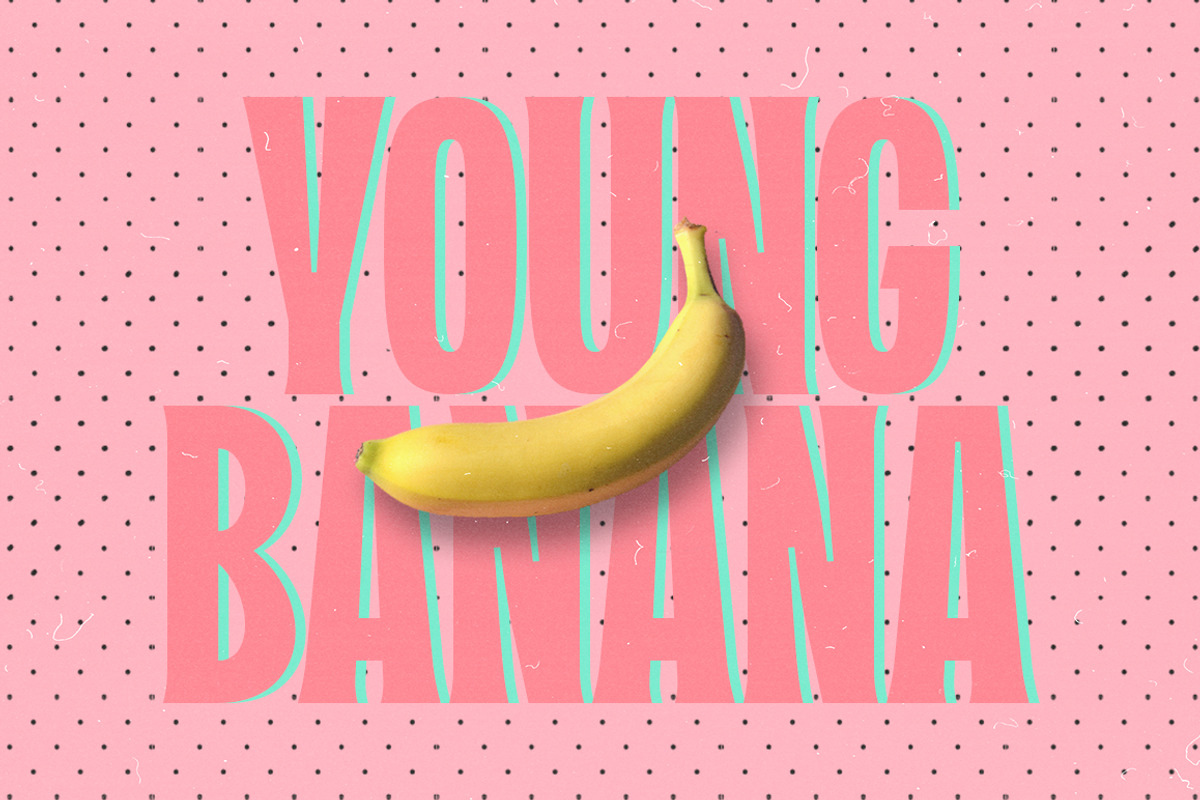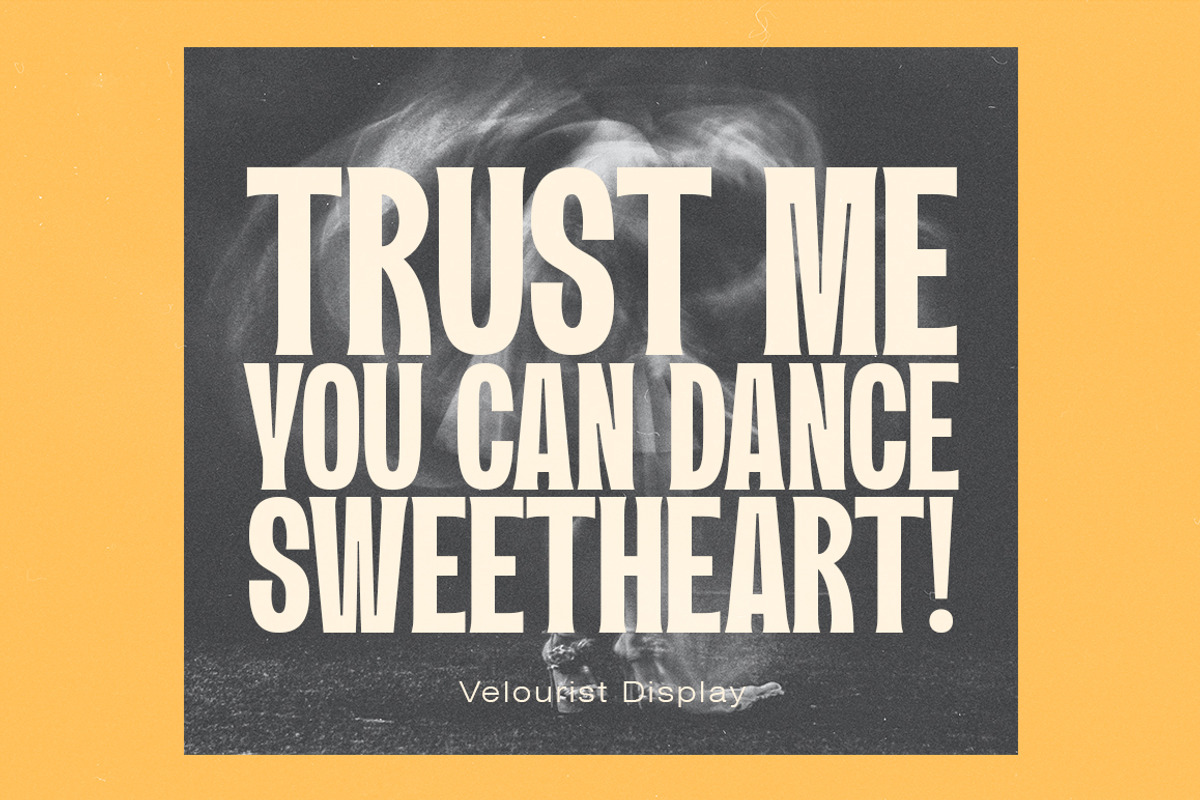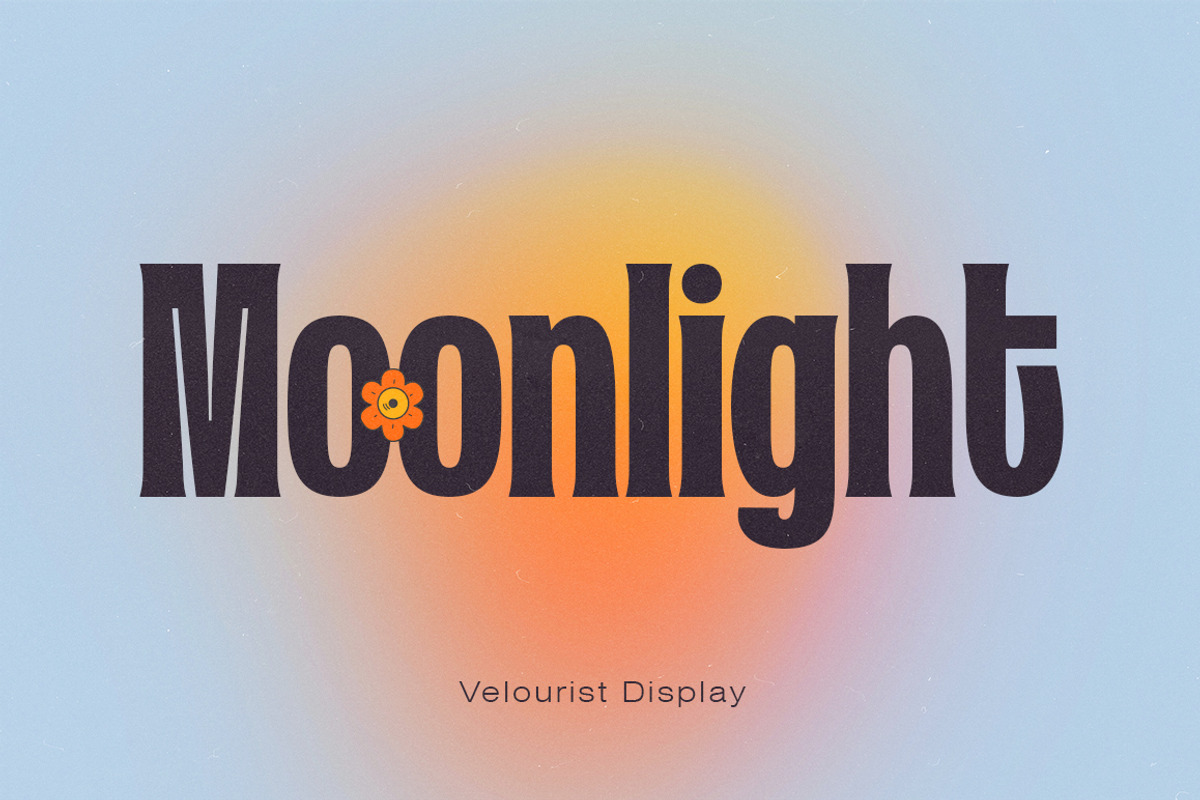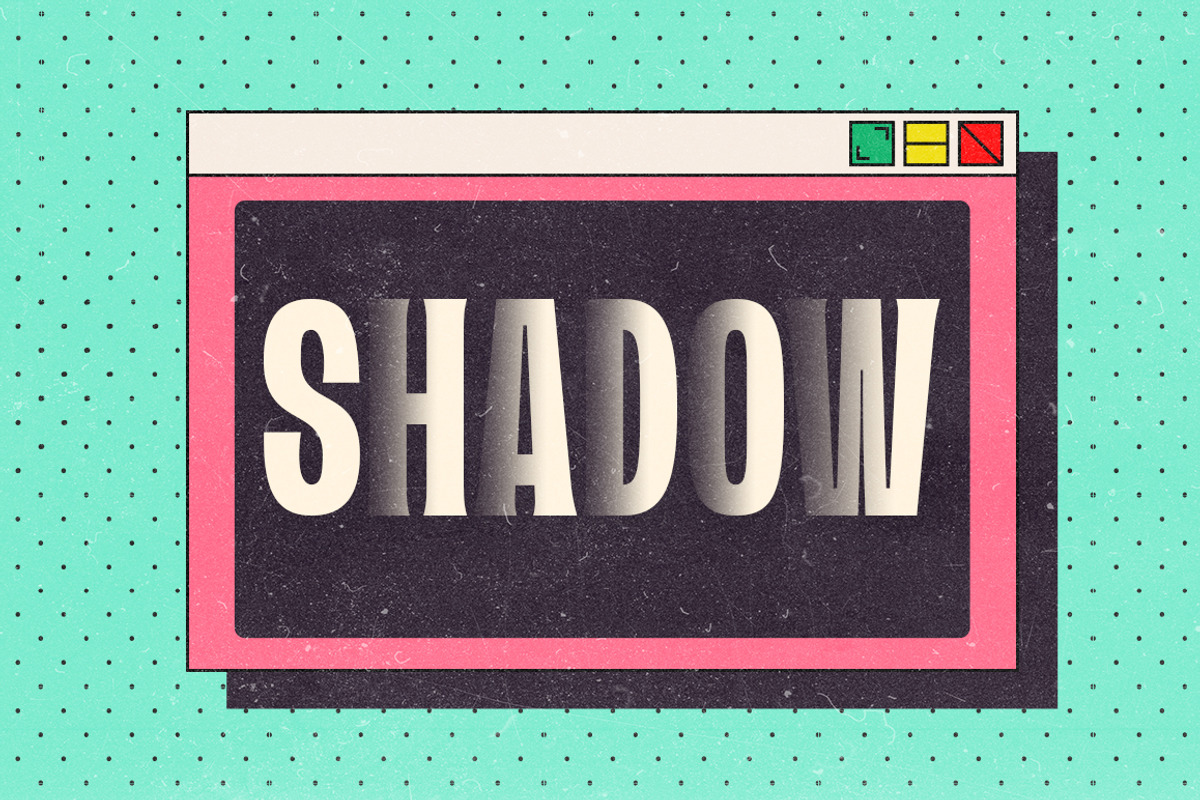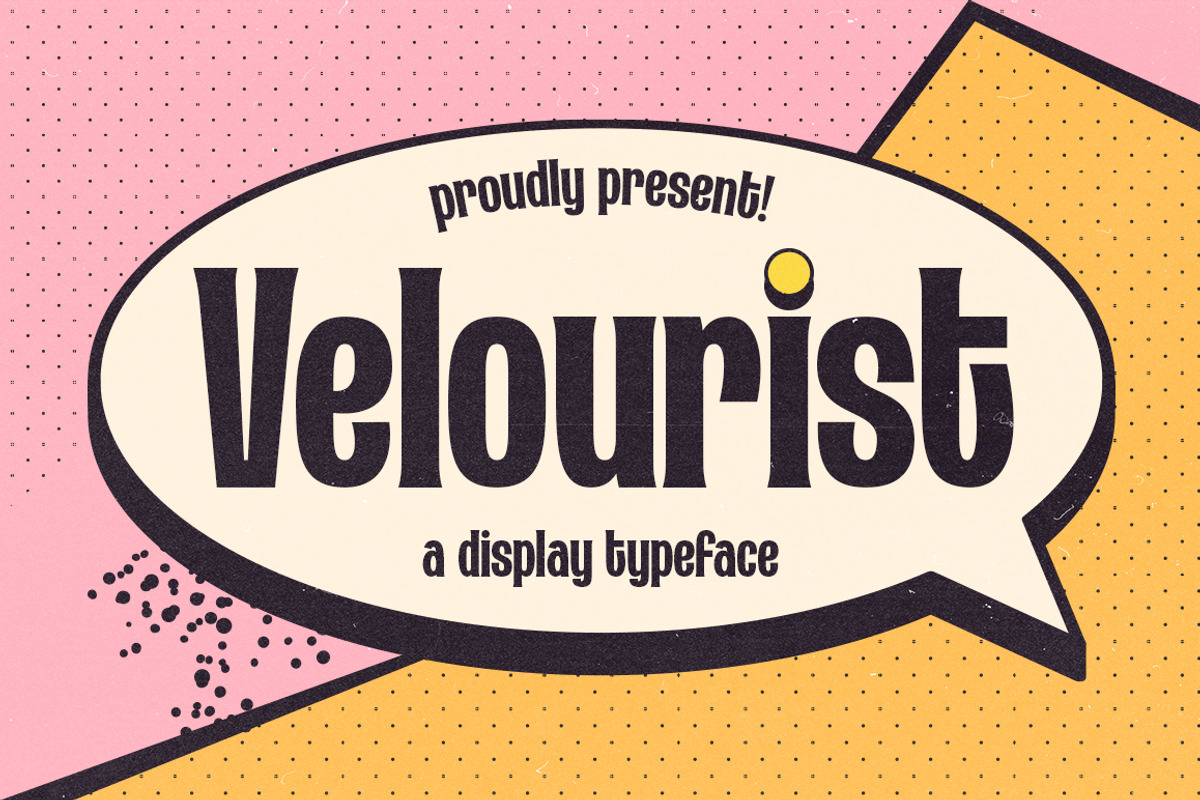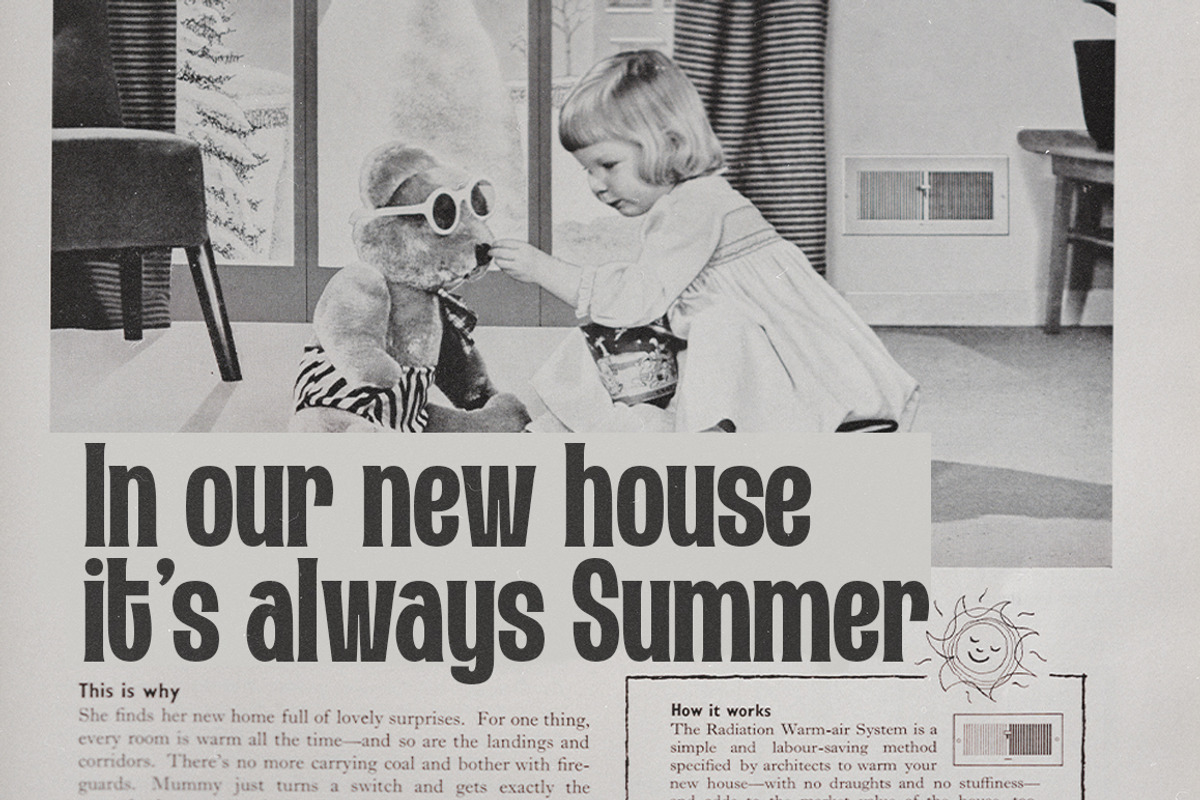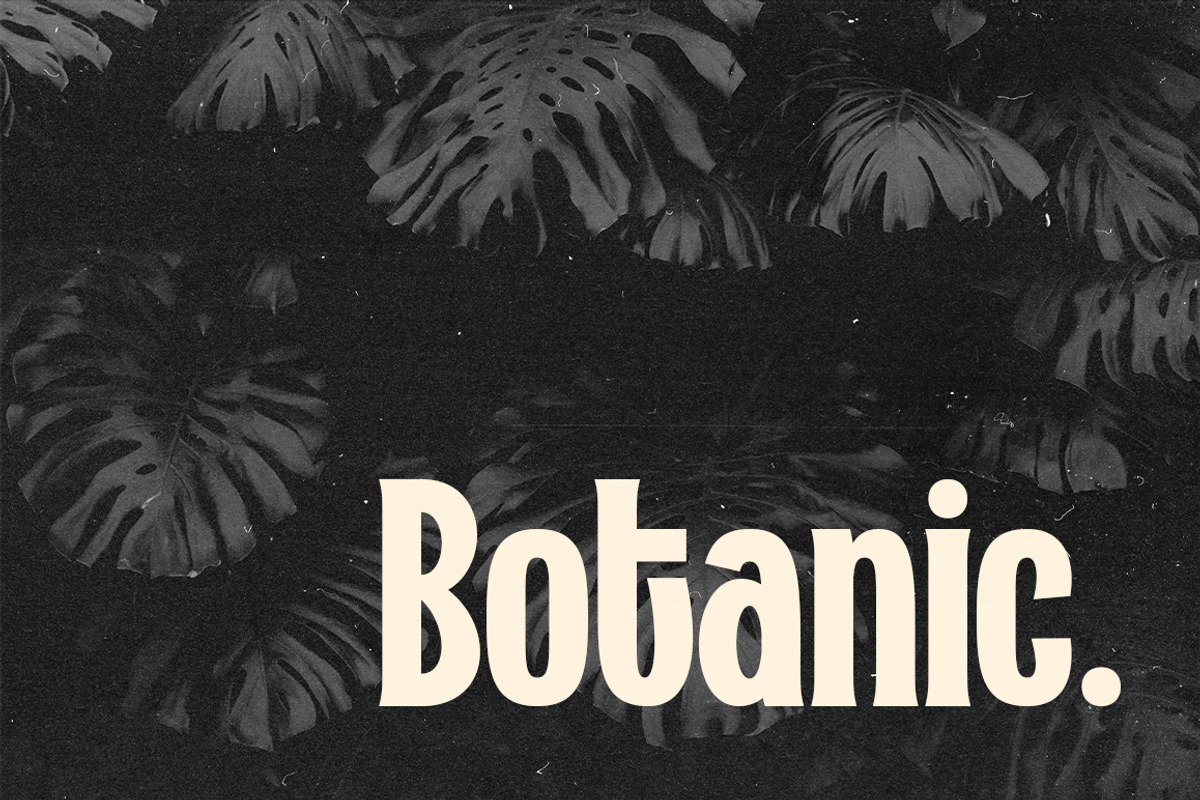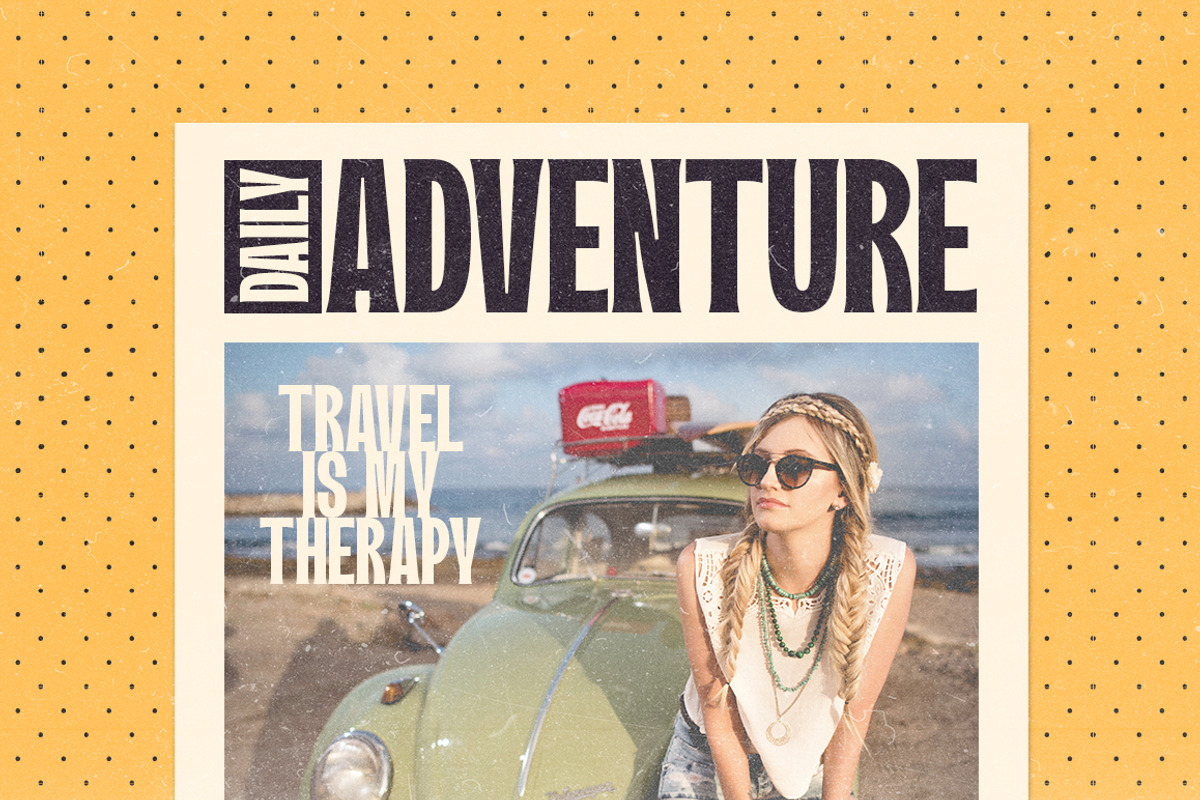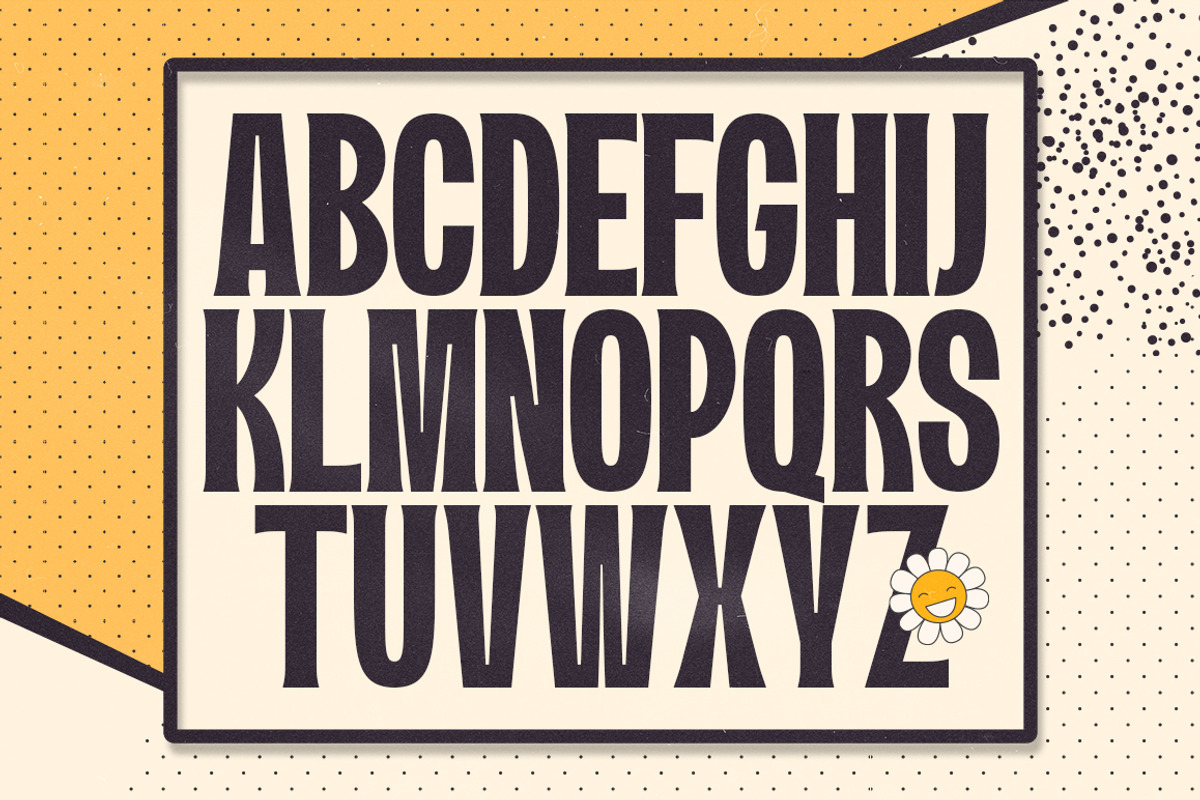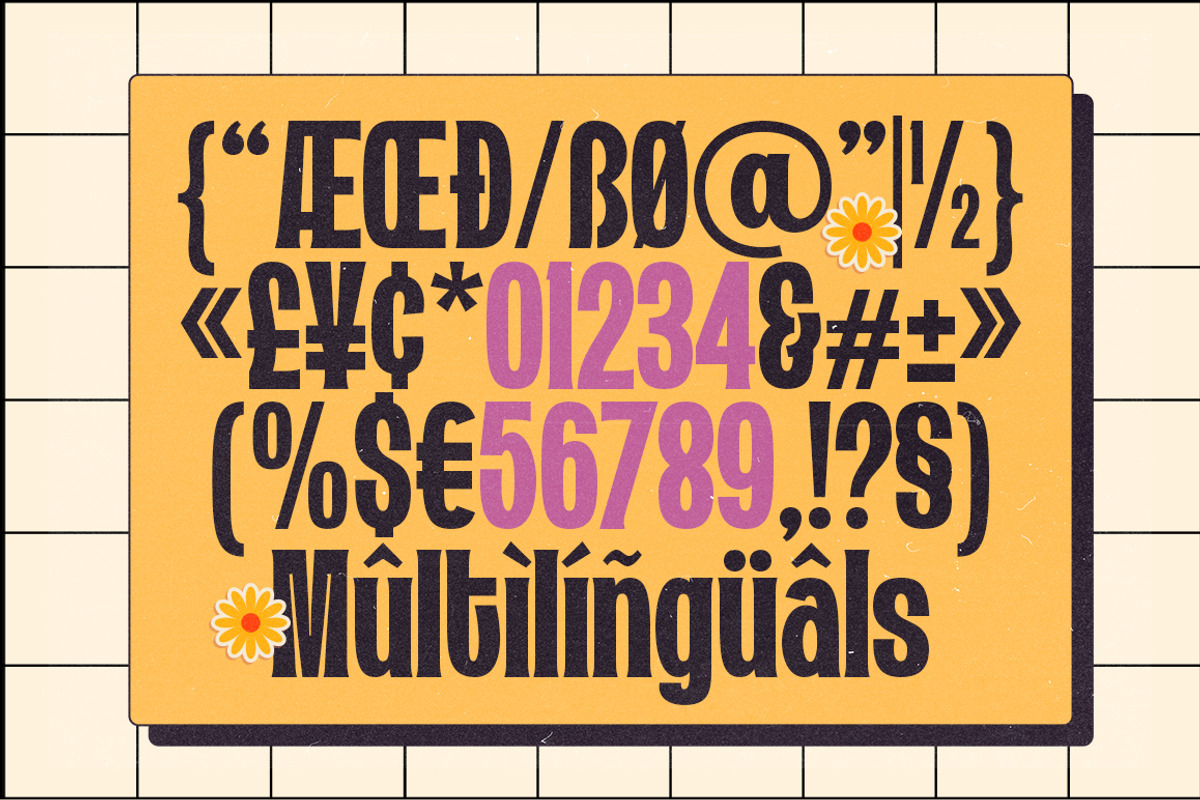
Velourist | Display Typeface
Velourist is a bold display type that’s absolutely perfect for editorial headlines with retro looks. It’s unique, bold, and slim figure make it a great fit for t-shirts, posters, and magazine covers.